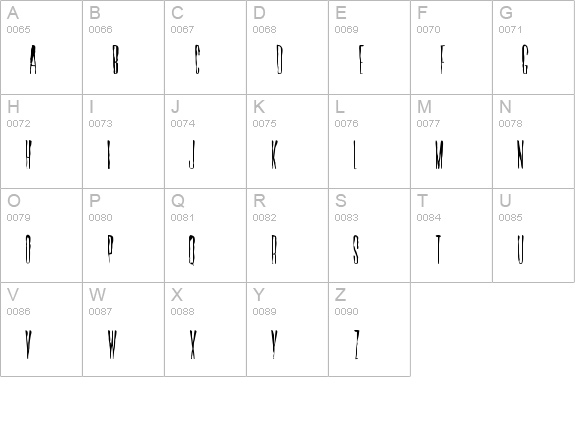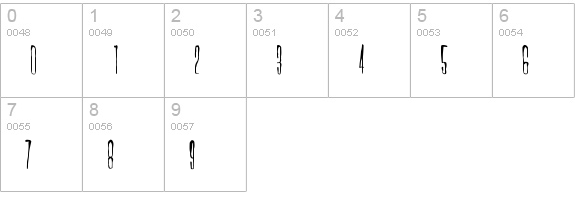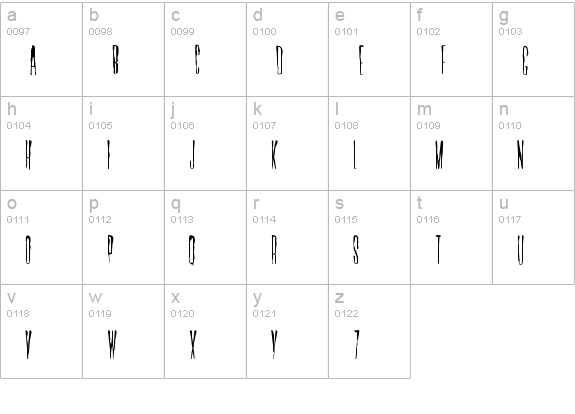
Immerse yourself in the chilling world of horror with HorrorHotel font, a spine-tingling typeface perfect for adding a touch of terror to your designs. This haunting font exudes an eerie atmosphere, reminiscent of a dark and mysterious hotel where nightmares come to life. Its jagged edges and twisted letterforms evoke a sense of unease, making it ideal for Halloween-themed projects, horror movie posters, and creepy branding. The best part? HorrorHotel font is available for free download at FontsMarket.com, allowing you to unleash its sinister charm in your creations without breaking the bank. So go ahead and give your designs a macabre makeover with this hair-raising font that will send shivers down your audience's spines.